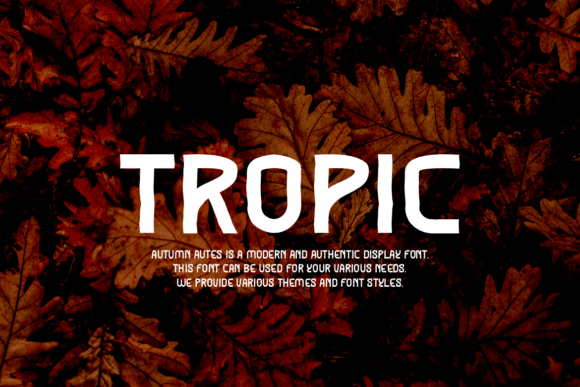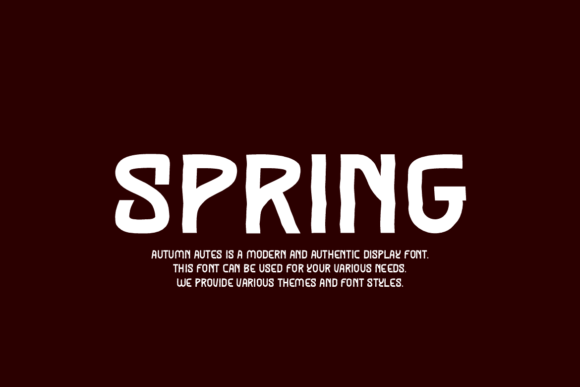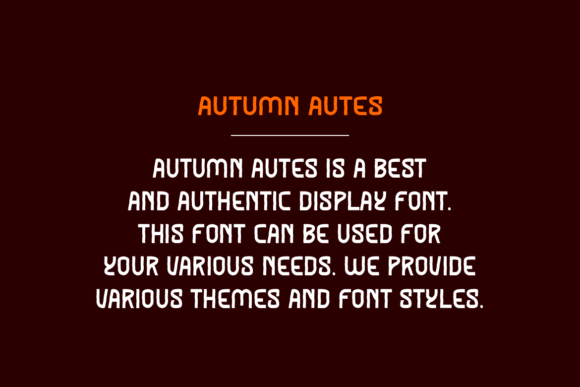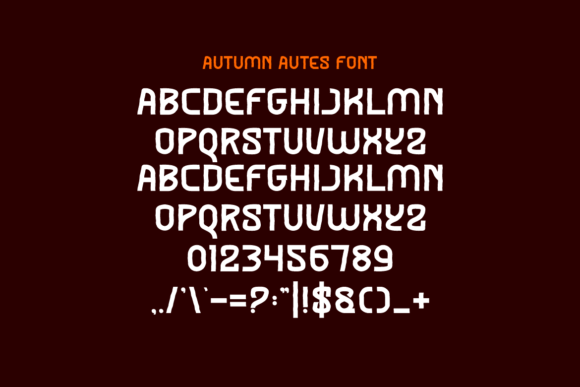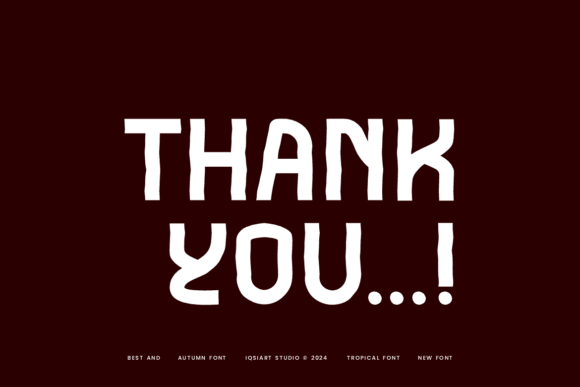
As a designer, there’s nothing quite like that moment when a fresh project comes along and sparks a wave of inspiration. You feel the rush of creativity, the urge to experiment and push the boundaries of what’s possible. And in those moments, the right font can be the difference between a good design and a great one.
Enter Autumn Autes Font, a bold and wavy display font that’s sure to add a playful touch to your next project. With its thick, curvy letters, it’s perfect for fun designs, titles, or posters that need a bit of extra oomph. Whether you’re a seasoned pro or just starting out, Autumn Autes Font is a valuable addition to any designer’s toolkit.
So why should you give Autumn Autes Font a try? For one, its creative style is guaranteed to add energy and a unique touch to your projects. And with its modern look, it’s sure to stay on-trend for seasons to come.
Autumn Autes Font Key Features
- Font Family: Autumn Autes is a sans-serif font family.
- Unique Characteristics: Autumn Autes features a clean and modern design with rounded edges and subtle italic styles.
Autumn Autes Font Review
- Unique and stylish design: Autumn Autes font has a beautiful, elegant feel to it, making it perfect for designs that require a touch of sophistication.
- Highly legible: The font is incredibly easy to read, even at smaller font sizes, making it a great choice for body text or headings.
- Great for autumn-themed designs: As the name suggests, the font has a lovely autumnal feel to it, making it perfect for designs that celebrate the season.
- Not suitable for all types of text: While the font is great for body text, it may not be the best choice for titles or headings that require a lot of emphasis.
- May be difficult to customize: The font’s unique design may make it challenging to customize or modify to fit specific design needs.
Overall, I’m really impressed with the Autumn Autes font. It’s a beautiful, stylish font that’s perfect for autumn-themed designs or any design that requires a touch of elegance. While it may have some limitations, I think it’s a great addition to any designer’s toolkit.
Getting the Most Out of Autumn Autes Font
For optimal results, use Autumn Autes Font for designs that require a natural, handwritten feel.
Experiment with different font sizes and colors to achieve a unique look.
Combine Autumn Autes Font with other fonts for a layered, eclectic design.
Autumn Autes Font is ideal for:
Birthday invitations and party decorations
Wedding stationery and wedding invitations
Personalized gift tags and cards
Alternatives to Autumn Aute Font
Great Vibes is a beautiful, elegant script font that can be used for various design purposes. It’s perfect for creating a warm and inviting atmosphere, especially in wedding invitations, quotes, and other creative projects.
Compared to Autumn Aute Font, Great Vibes has a more fluid and dynamic feel, making it ideal for designs that require a sense of movement and energy. While Autumn Aute Font is more focused on a natural, earthy look, Great Vibes offers a more whimsical and romantic feel.
Pacifico is a modern script font that exudes a sense of relaxation and calmness. It’s perfect for designing websites, social media graphics, and other digital content that requires a soothing and approachable tone.
Pacifico is similar to Autumn Aute Font in its natural and earthy feel, but it has a more refined and sophisticated look. While Autumn Aute Font is more rustic and organic, Pacifico is sleeker and more modern.
Alex Brush is a beautiful, handwritten font that’s perfect for creating a personal and emotional connection with your audience. It’s ideal for designing quotes, journal entries, and other creative projects that require a touch of warmth and intimacy.